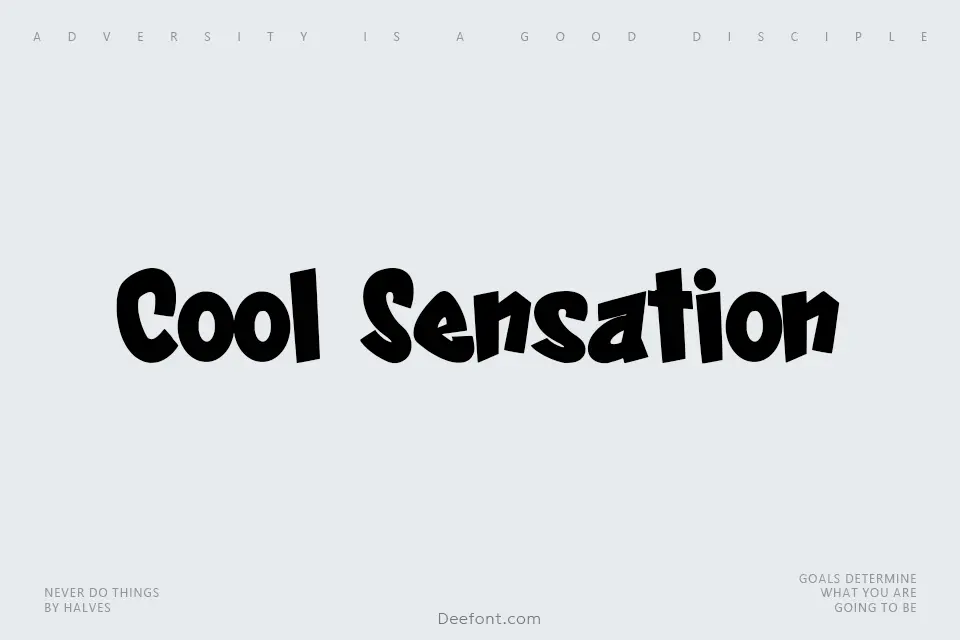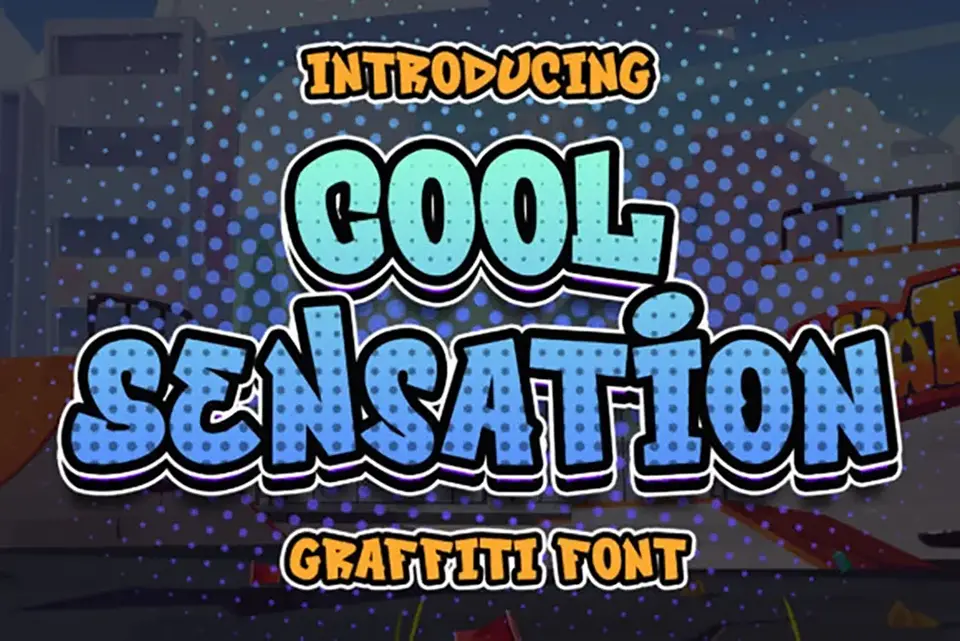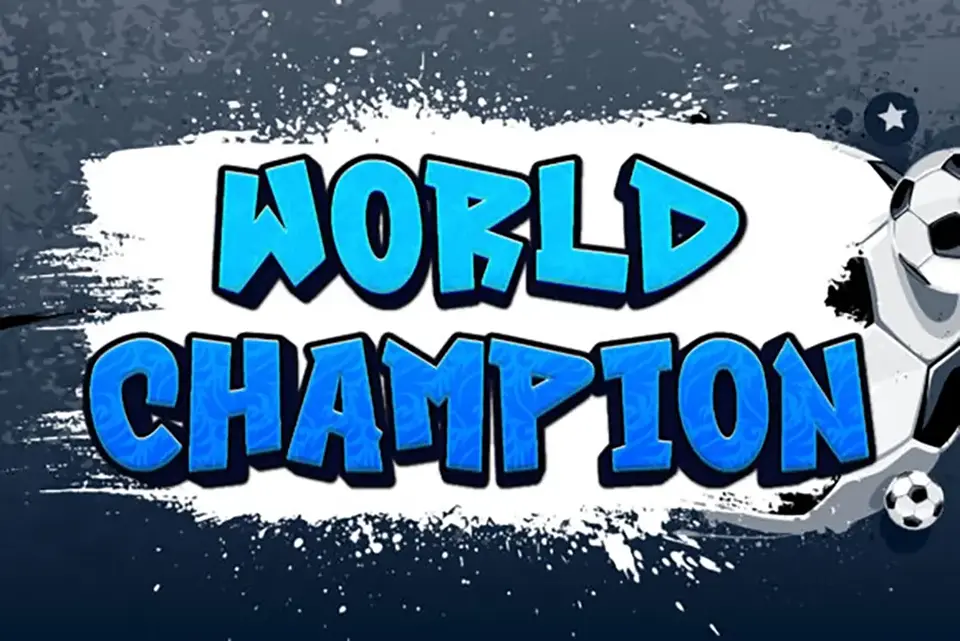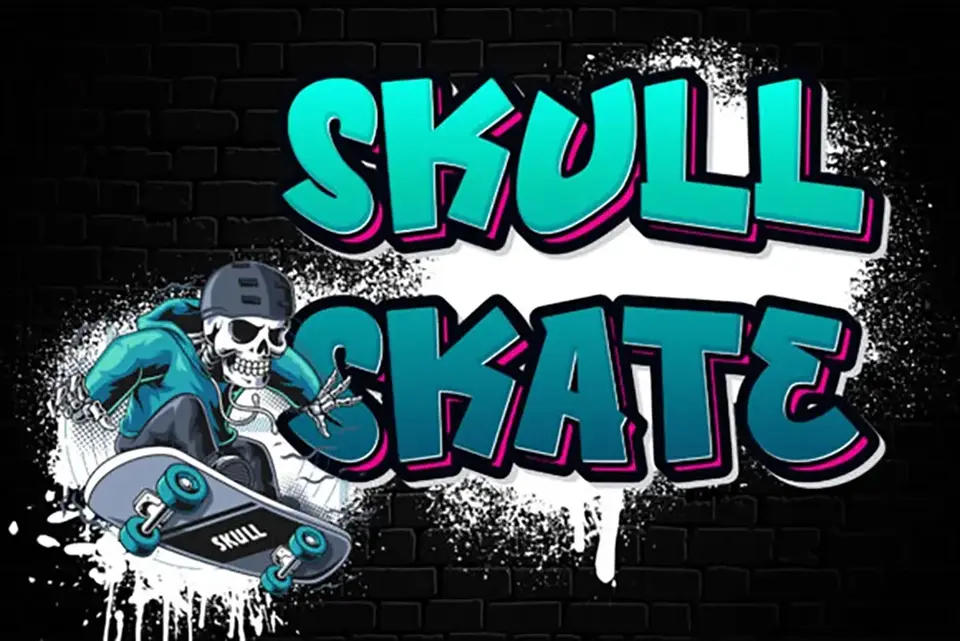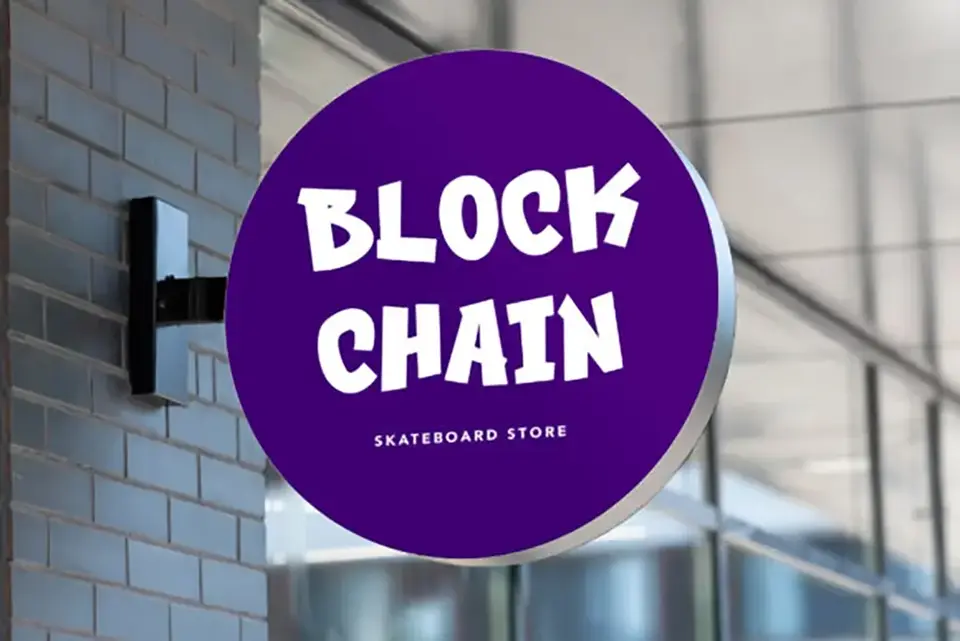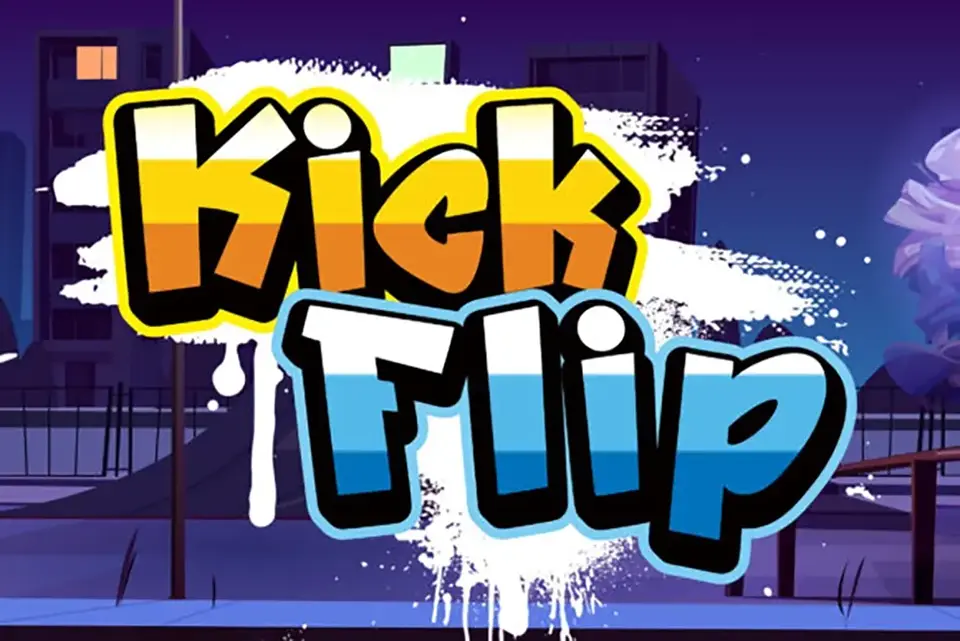
Cool Sensation Font
Cool Sensation is a vibrant graffiti-style display typeface that captures the bold energy of urban street culture. Crafted by Asep Rendi, this typeface features playful curves and exaggerated forms with hefty strokes that create striking visual impact. Perfect for dynamic applications including event posters, urban branding, and social media graphics, Cool Sensation excels at conveying enthusiasm and modern creativity. Its expressive character makes it ideal for projects demanding eye-catching presence and contemporary flair.